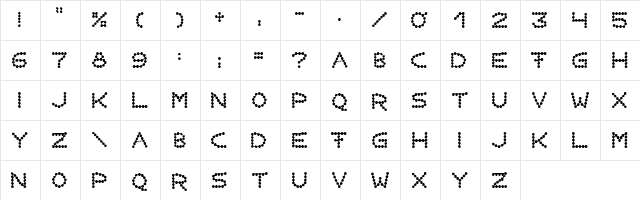
Perlenkette Regular
Design Context for Perlenkette Typeface
Perlenkette is a composed and adaptable typeface that performs quietly and consistently across a wide range of design contexts.